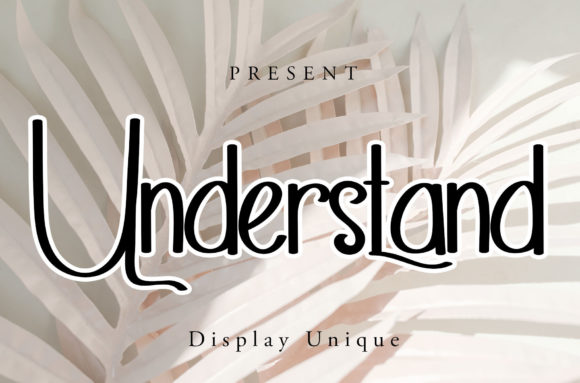
Embrace the captivating allure of Understand, a mesmerizing script font that will ignite your imagination. With its graceful curves and enchanting flow, this font exudes a touch of whimsy and elegance.
Step into a world of infinite possibilities with Understand, where your words dance with effortless beauty. Whether you're crafting enchanting Instagram bios or designing works of art, this font will add a touch of sophistication to every creation.
Indulge in the symphony of style that Understand offers. Let its delicate strokes caress your designs, infusing them with a unique charm that will captivate and inspire. Explore the endless possibilities that await you with Understand, the font that empowers your words to soar.